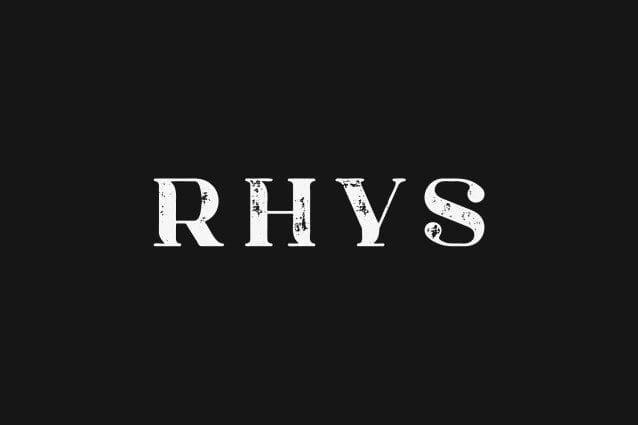
Rhys Vintage Font
Rhys Vintage Font is an elegant and versatile font that will make your typography truly unique! It will enchant every logo, branding, headline, or plain text!